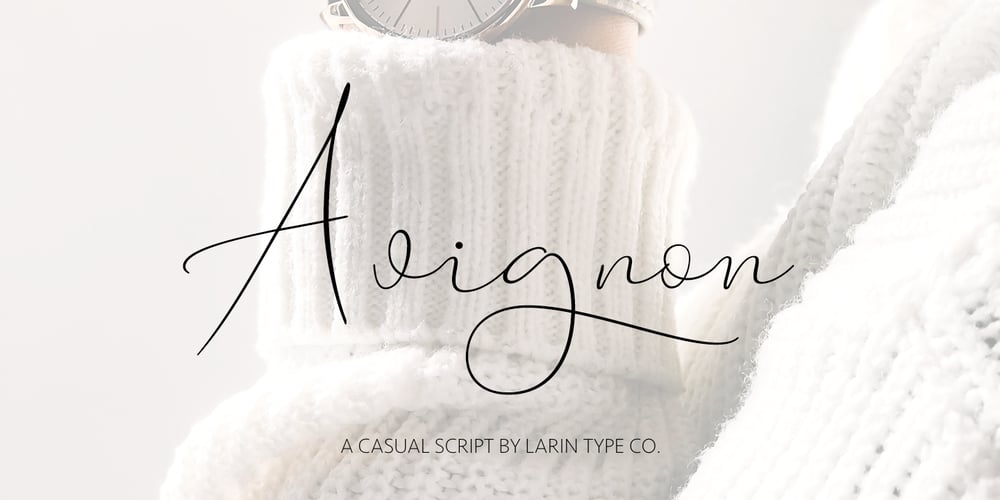
Avignon
Avignon font
Avignon Font Family was designed by Pavel Larin and published by Larin Type Co. Avignon contains 1 styles and family package options. Avignon script – a new casual font. This font is light, airy and elegant, perfect for wedding invitation, ideal for branding, blog and to decorate any project. Also with their help, you can create a logo or beautiful frame for your home. Or just use for your small business, notebook, stationery, marketing, magazines and more. Enjoy using!